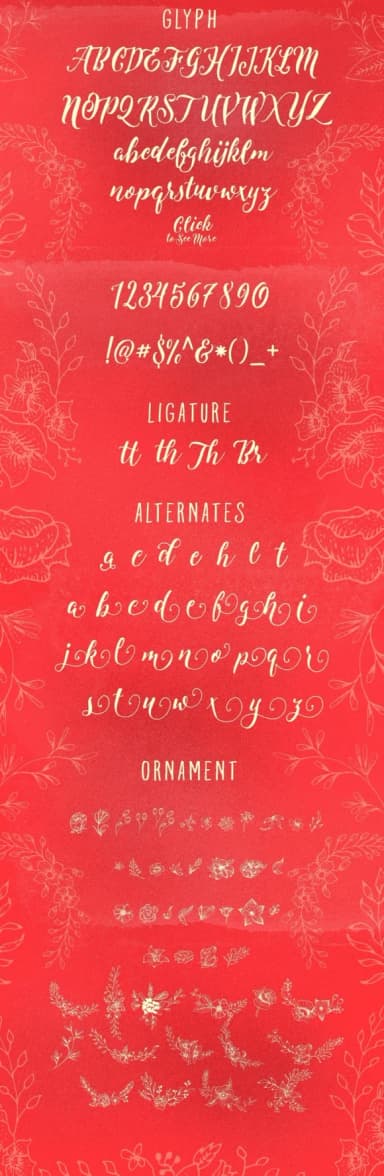
Levitte by flavortype is a flowing script font that brings a sophisticated hand-lettered quality to any creative project. With its graceful curves and refined letterforms, this typeface delivers the warmth of authentic penmanship while maintaining professional polish and visual clarity. The included ornamental characters add decorative flourishes and embellishments that enhance everything from handwritten-inspired logos to custom monogram designs and personalized compositions. The font truly shines in feminine-forward applications where elegance and authenticity matter most. Levitte is ideal for wedding invitation suites, beauty brand packaging, personalized greeting card designs, and artisan product labeling, anywhere you need a sophisticated yet approachable hand-lettered aesthetic. Whether you're crafting boutique cosmetics branding, designing custom event announcements, or building a signature visual identity, this script adapts beautifully across both formal settings and warm, inviting contexts that call for personal connection. The ornamental extras included with this download significantly expand your creative possibilities, giving you additional design elements to layer, accent, or combine within your compositions and layouts. This makes Levitte especially valuable for anyone building cohesive brand systems, creating detailed decorative projects, or designing pieces that require multiple coordinated elements working together seamlessly. Discover how this elegant script can transform your next design by getting Levitte on Creative Fabrica.
Levitte Font is a script font that shines as a display or heading face. Pair it with a clean sans-serif or serif font for body text β the contrast creates a clear hierarchy while the two styles stay balanced and easy to read.
Levitte Font
by flavortype